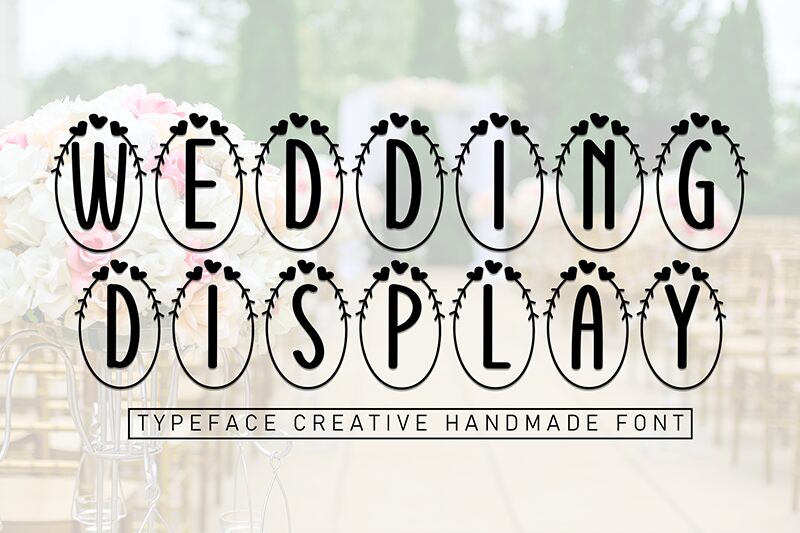
Wedding Display font by Andi Moz is a whimsical free font designed to convey elegance. Its careful curves are defined with a decorative style in a handwritten style.
While wedding themes are clearly supported by its curvy design, the font can be used for several other applications. With the current hype of handmade fonts, it can also be integrated into contemporary design projects to support a modern look.
Charming, inviting, and romantic, this artistic display typeface is ideal for wedding invitations, magazines, food and beverage packages, invitation cards, and beauty product covers. Use for film covers, headings, and other holiday themes.
This is a sweet and friendly handwritten display font. Cute and fun, this font is ideal for writing invitations, greeting cards, or any design that requires a playful touch.